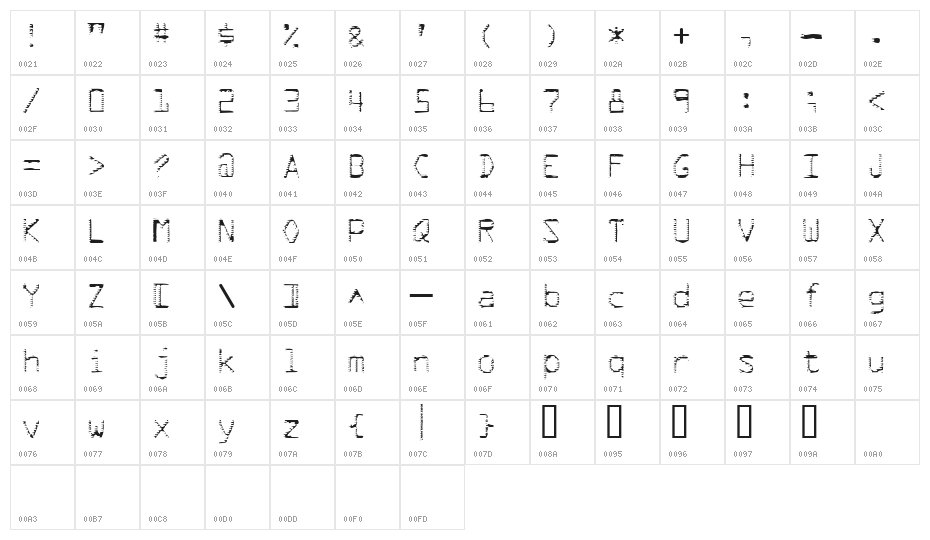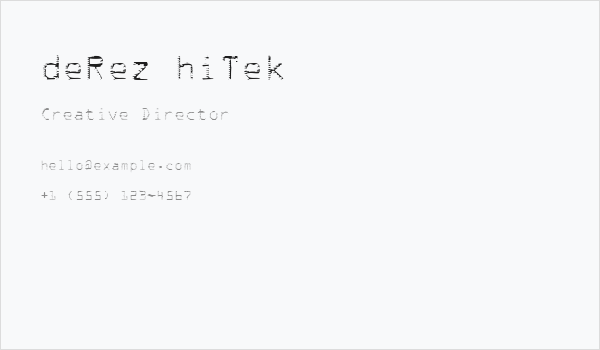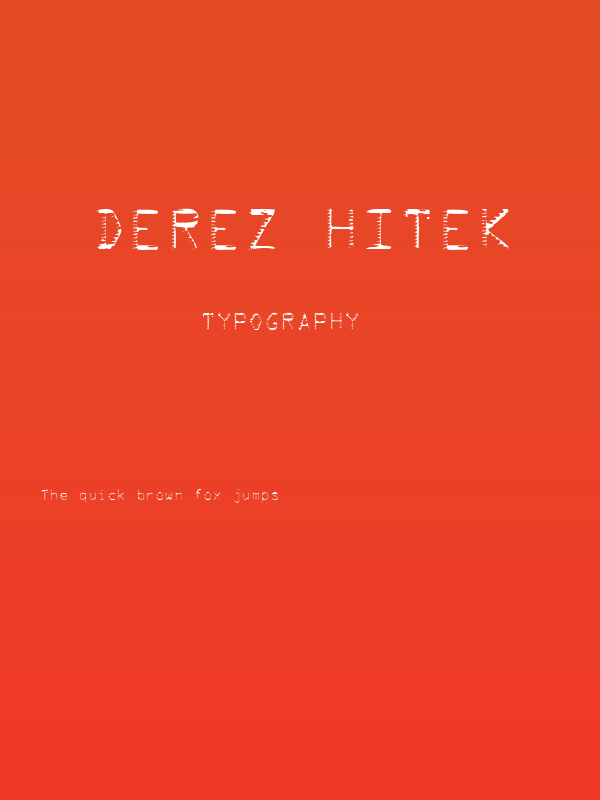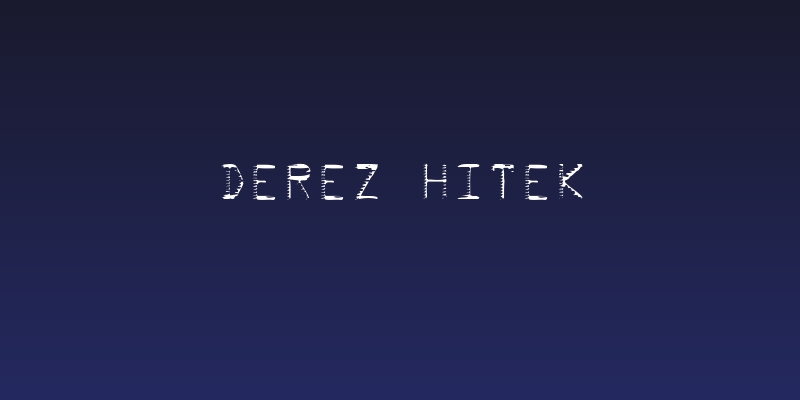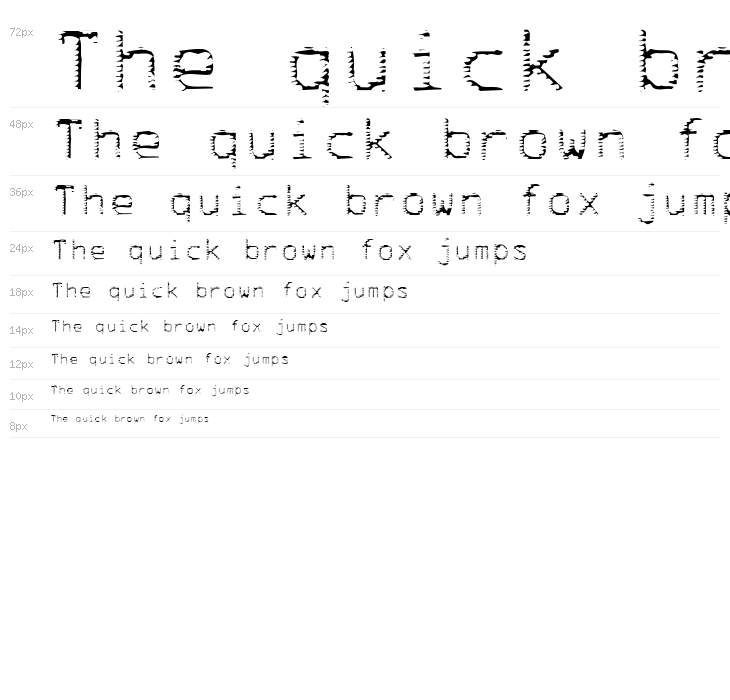
deRez hiTek Font
deRez hiTek Description
This font features a futuristic and digital aesthetic, characterized by its fragmented and pixelated appearance. The letters are constructed with a series of horizontal lines that create a glitch-like effect, giving it a high-tech and modern feel. The uppercase and lowercase letters maintain a consistent style, with sharp edges and a mechanical look. Numbers and special characters follow the same design principles, ensuring uniformity across all glyphs. The font's unique style makes it stand out, perfect for projects that require a tech-savvy or digital theme.
| Proposed Projects | Ideal for tech-related branding, digital art projects, video game design, and sci-fi themed posters. |